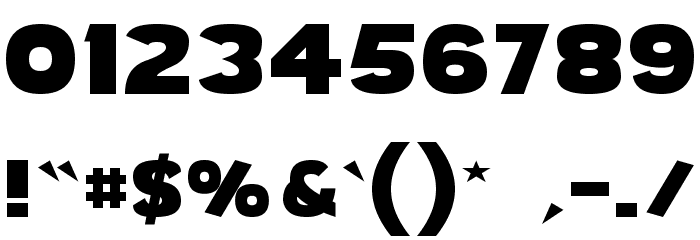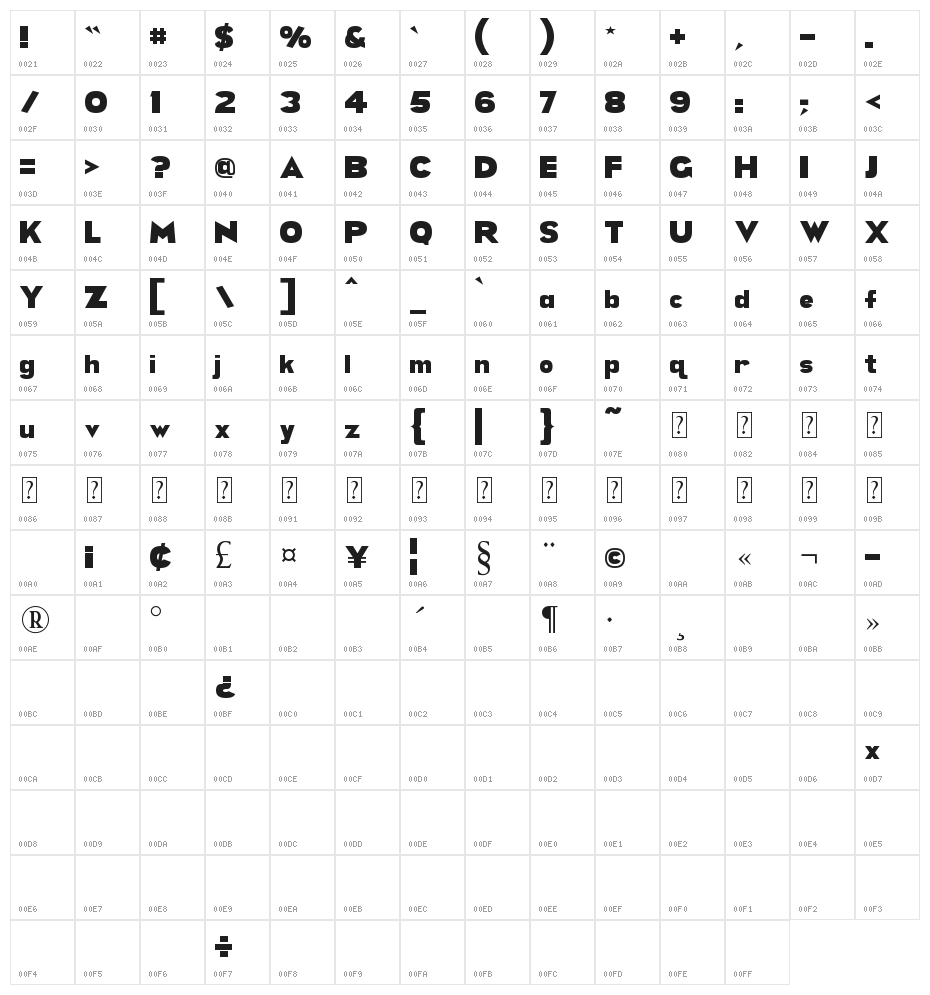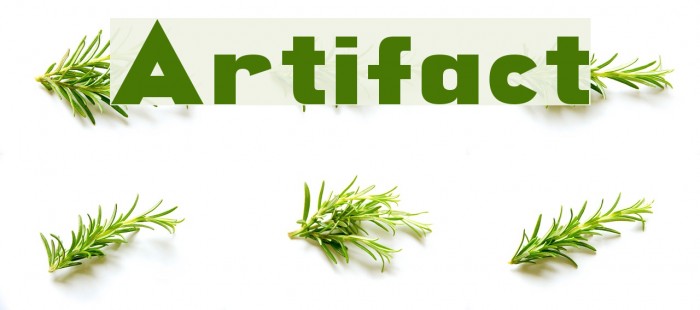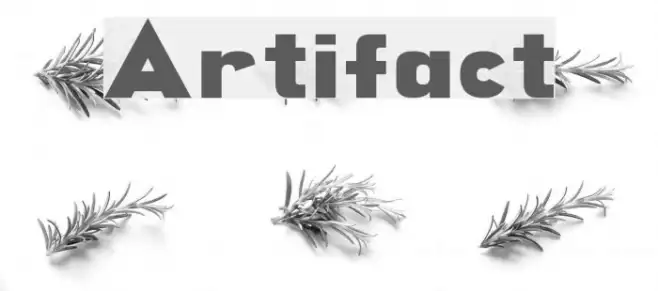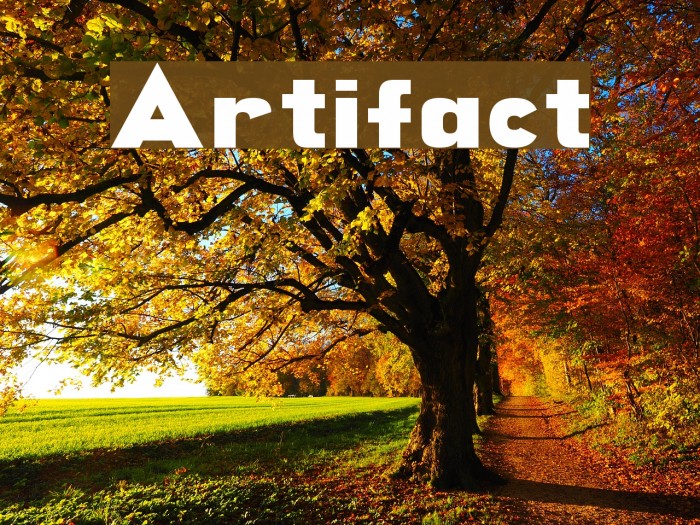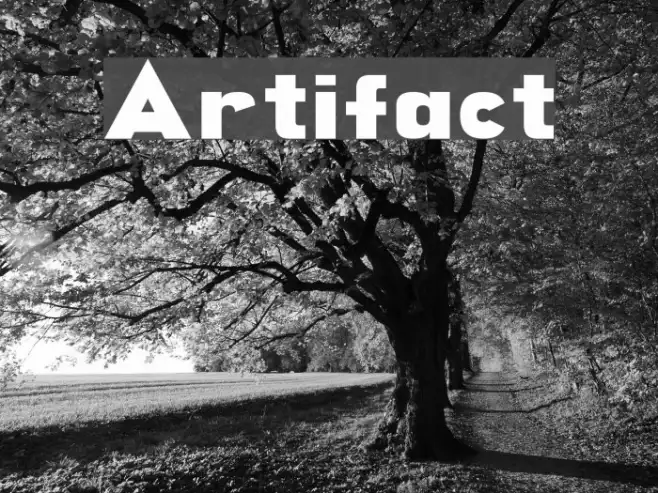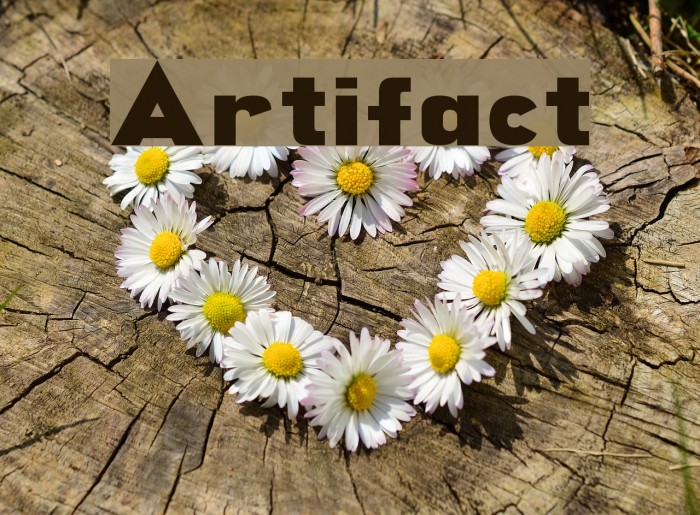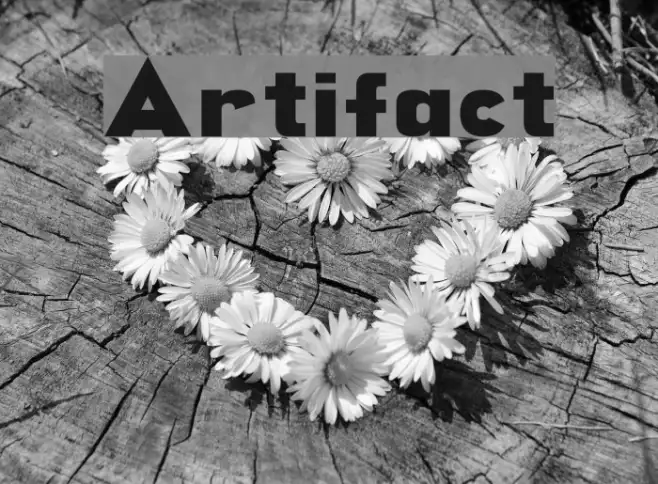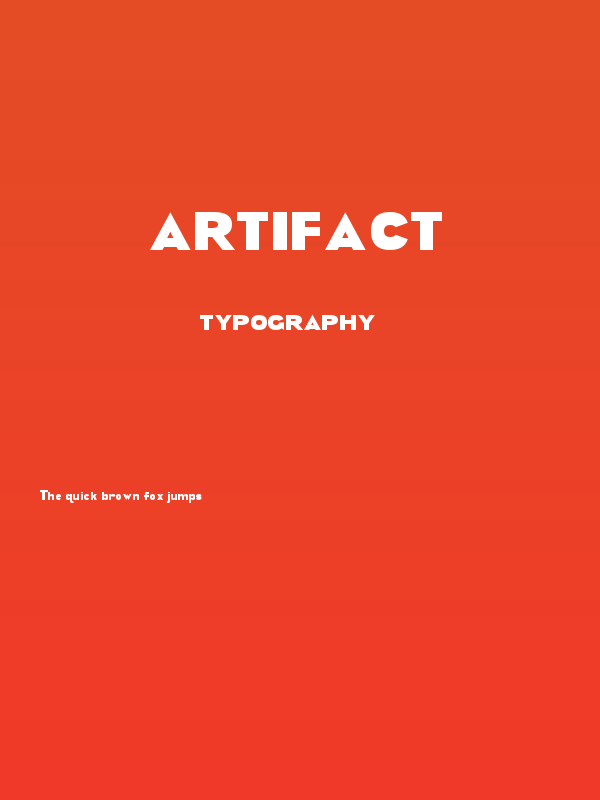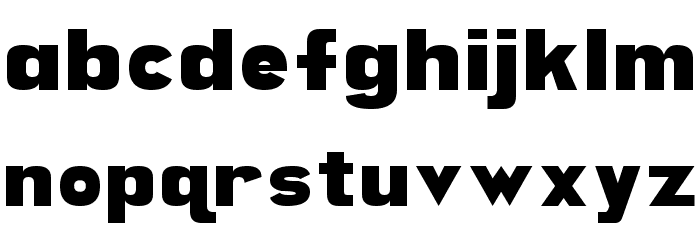
Artifact Font
Artifact Description
This font features bold, geometric letterforms with a strong presence. The characters are constructed with thick strokes and sharp angles, giving it a modern and assertive appearance. The uppercase letters are particularly striking, with a uniform height and width that create a cohesive look. The lowercase letters maintain the boldness of the uppercase, with rounded edges that soften the overall feel. The numerals are equally robust, ensuring legibility and impact. Special characters are designed to match the bold style, making this font suitable for attention-grabbing designs.
| Proposed Projects | Ideal for branding, posters, headlines, and any project requiring a bold, modern typeface. |